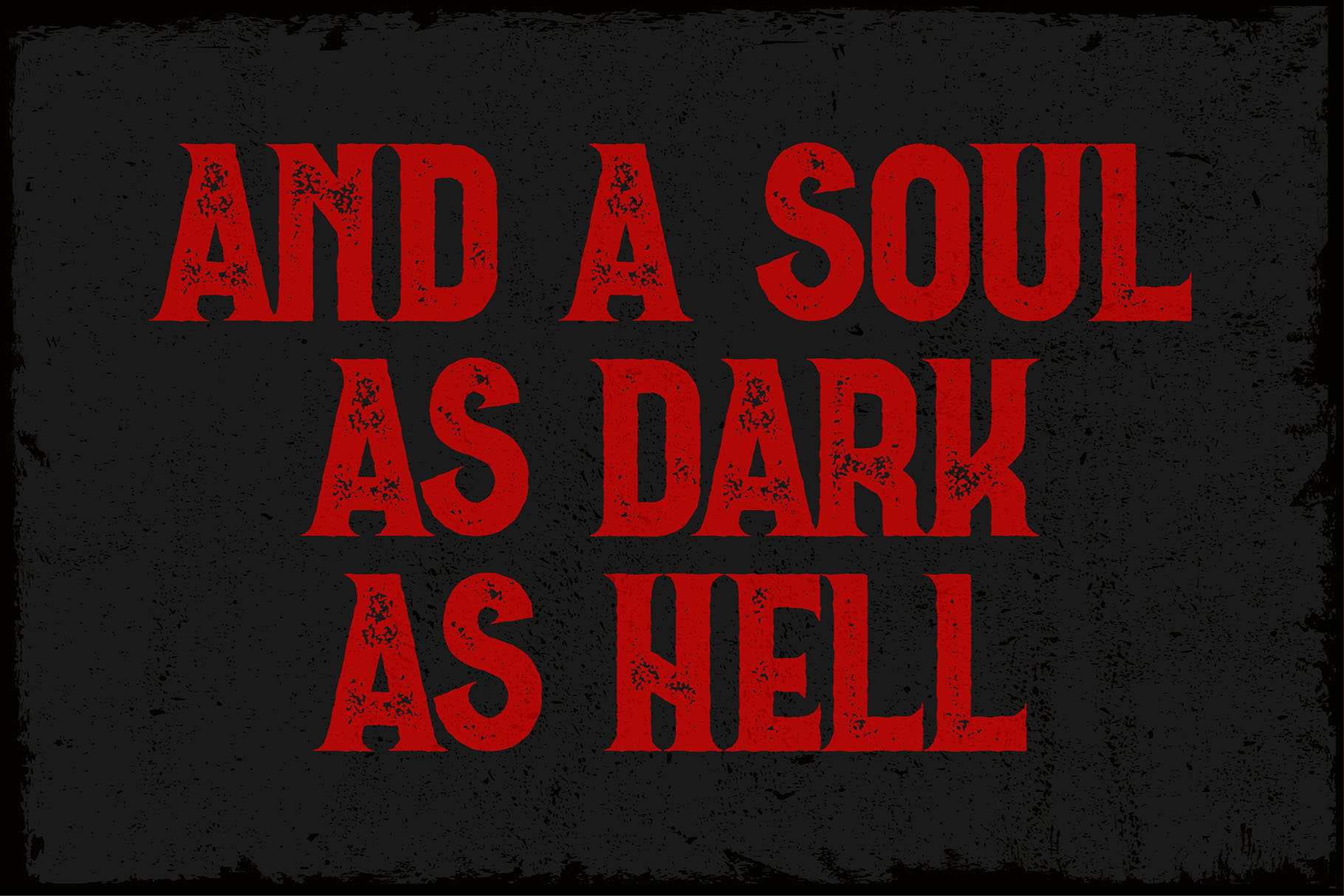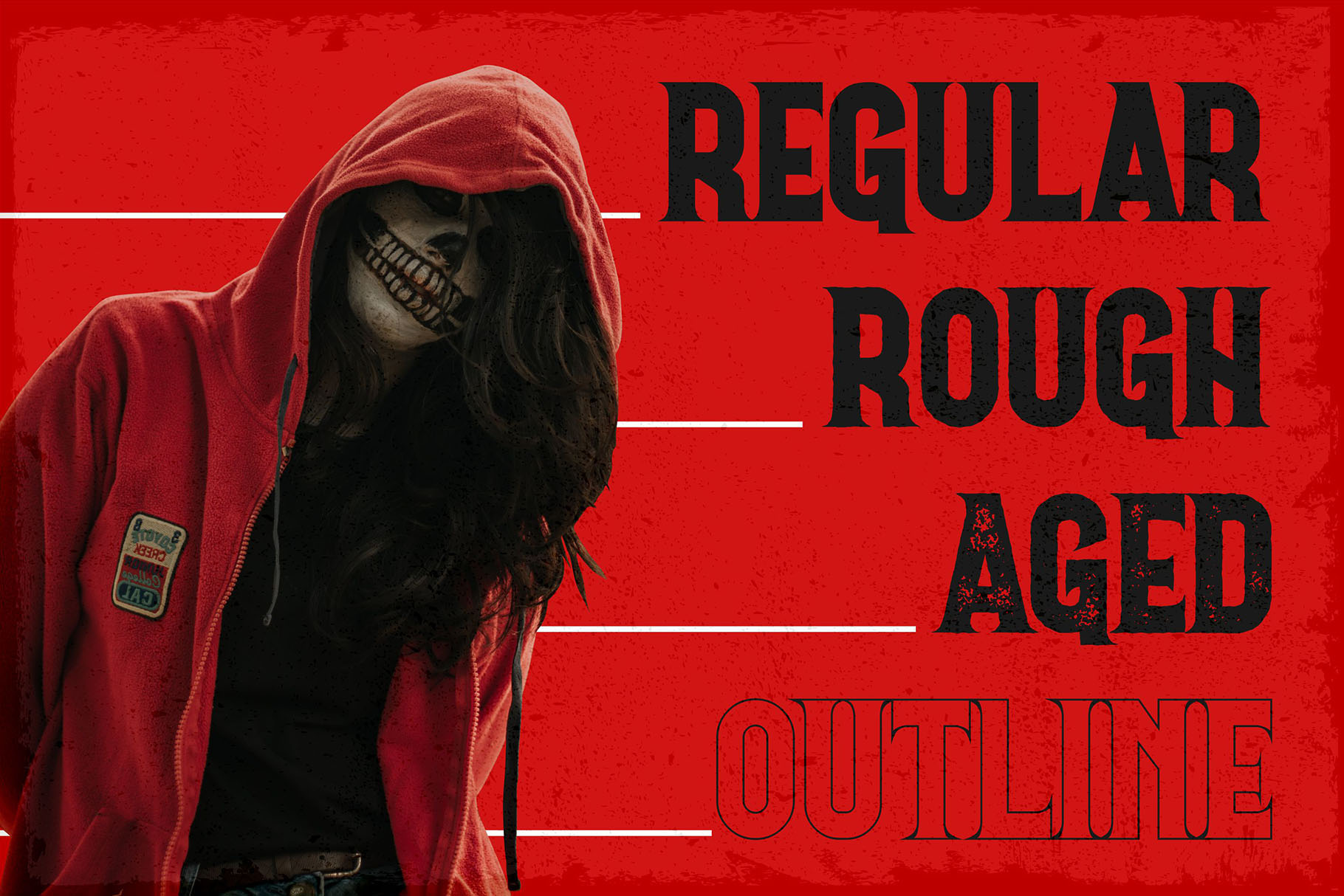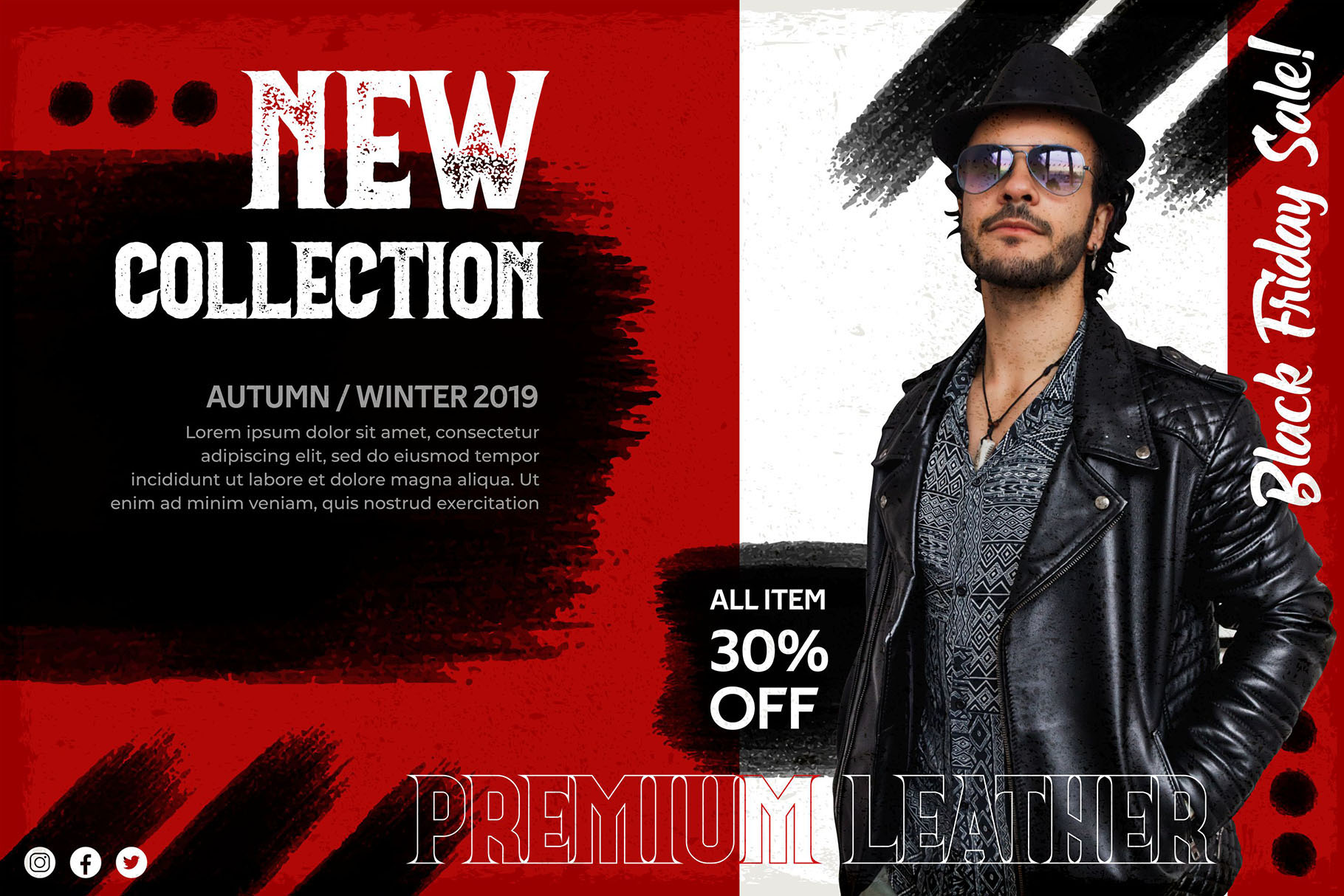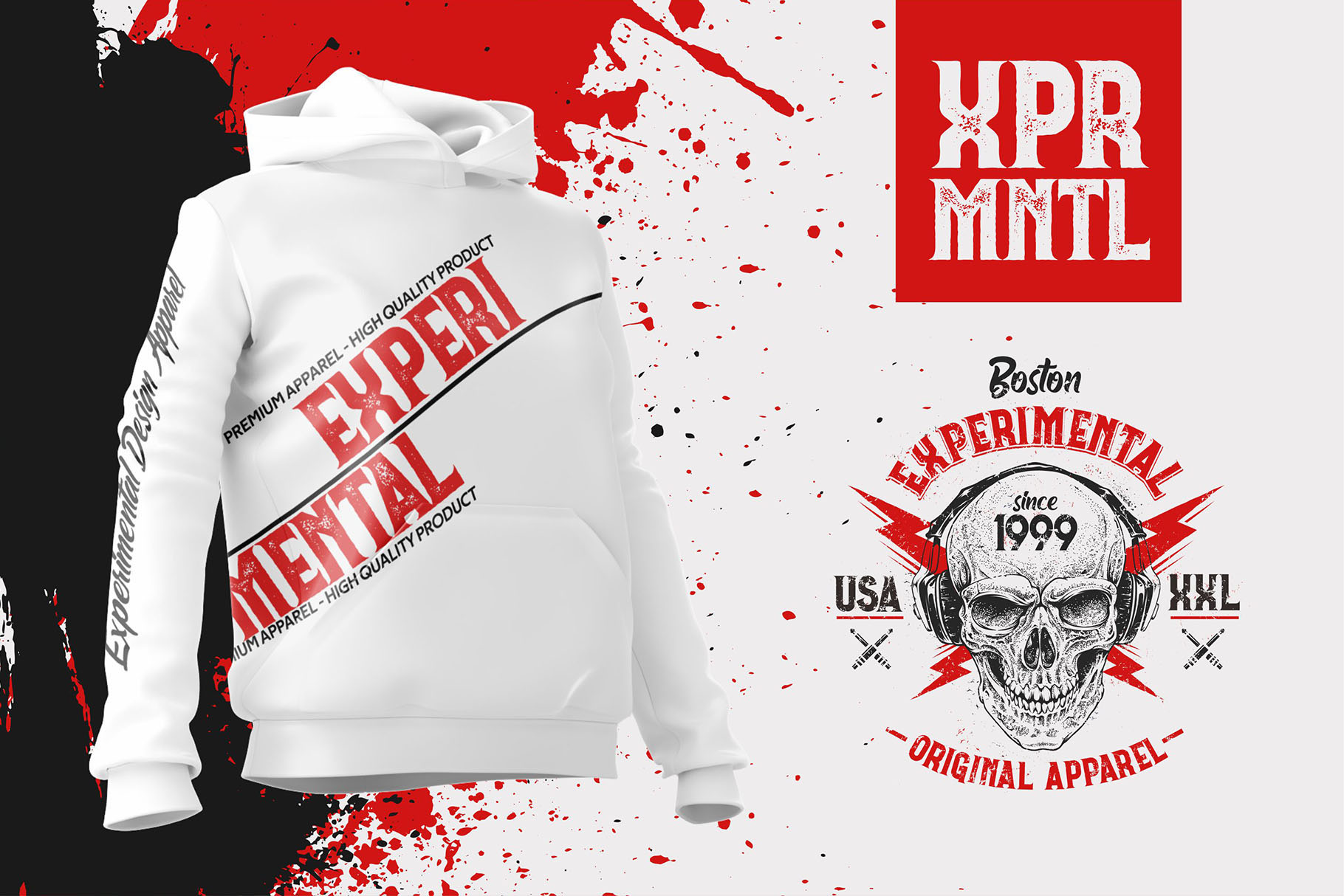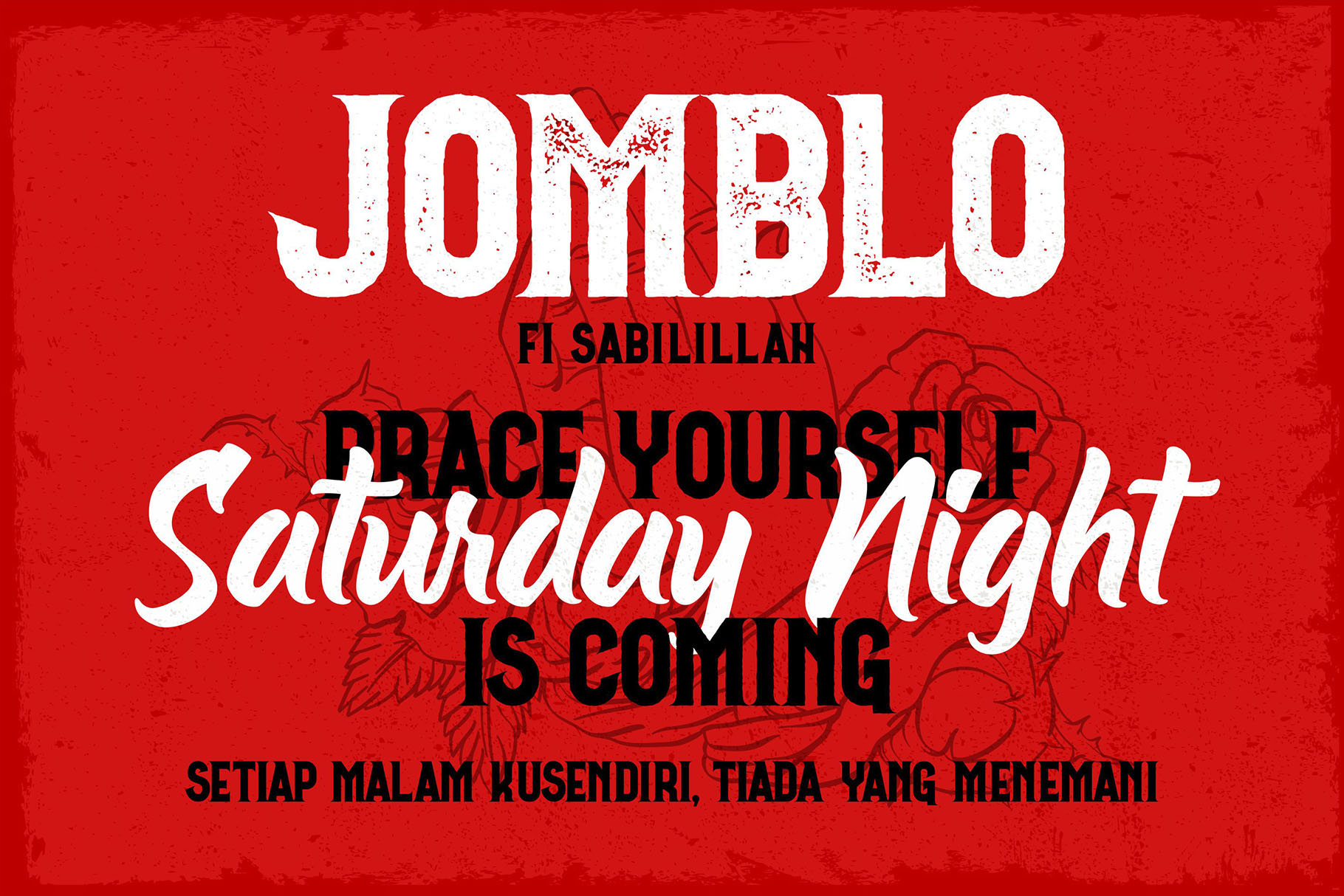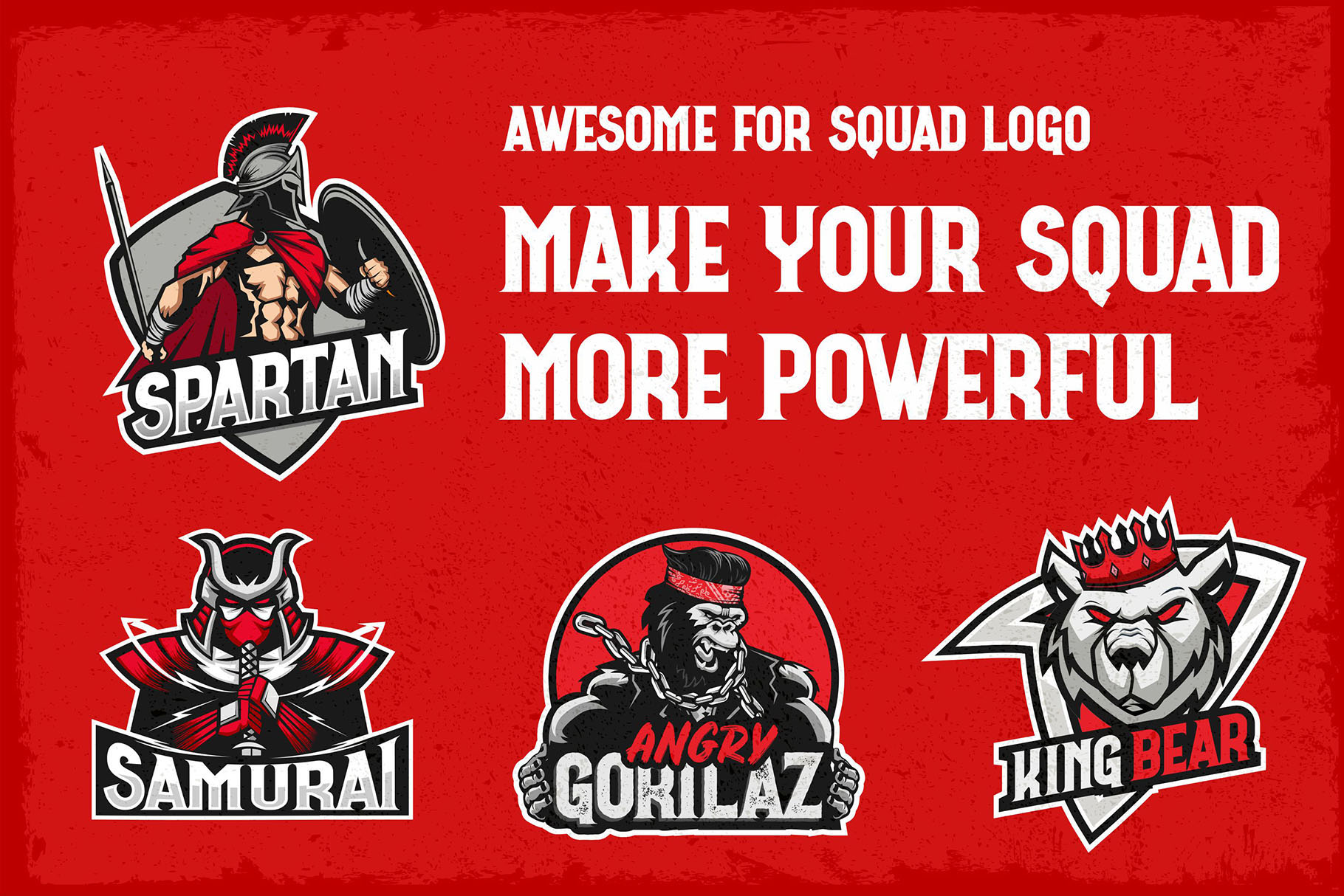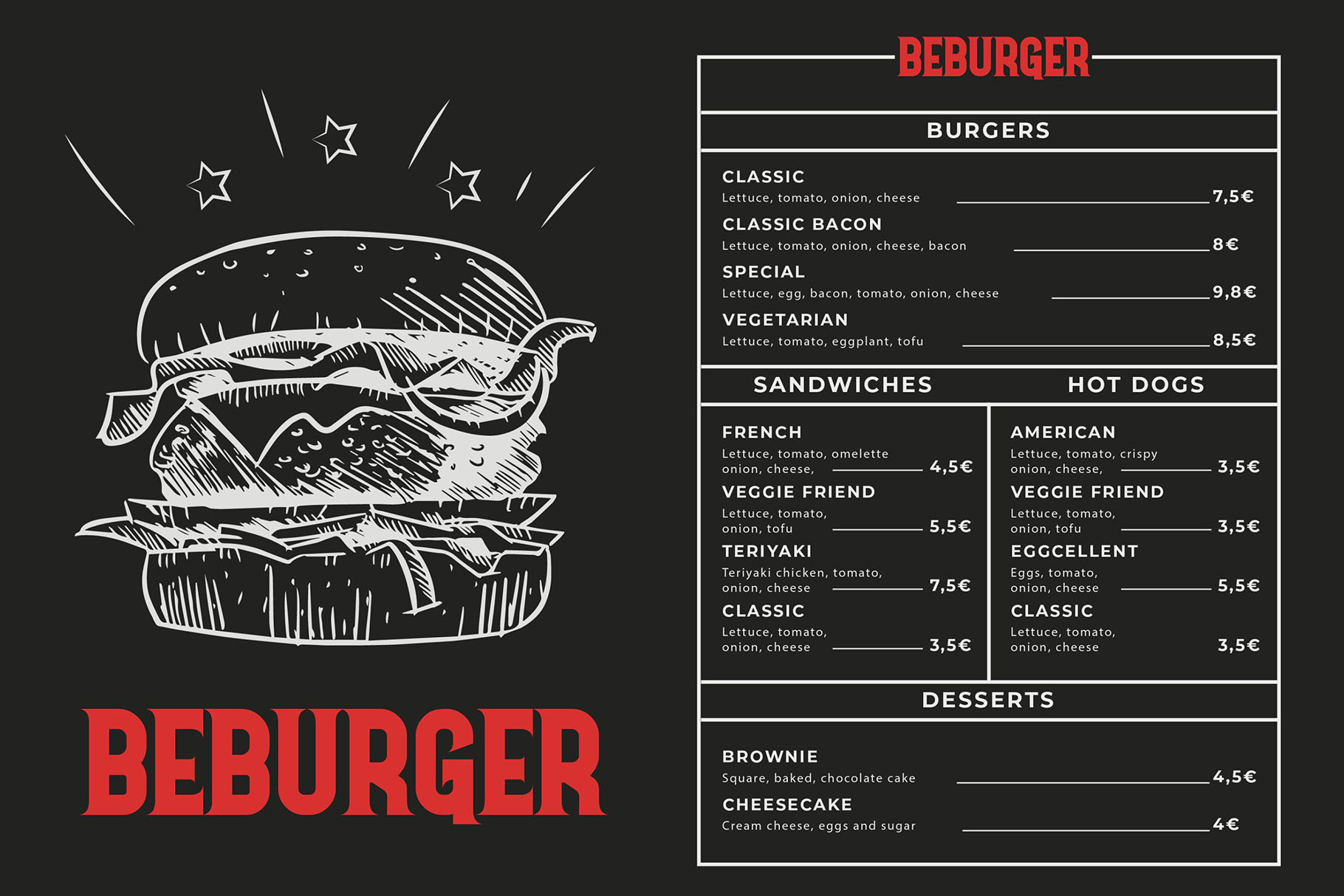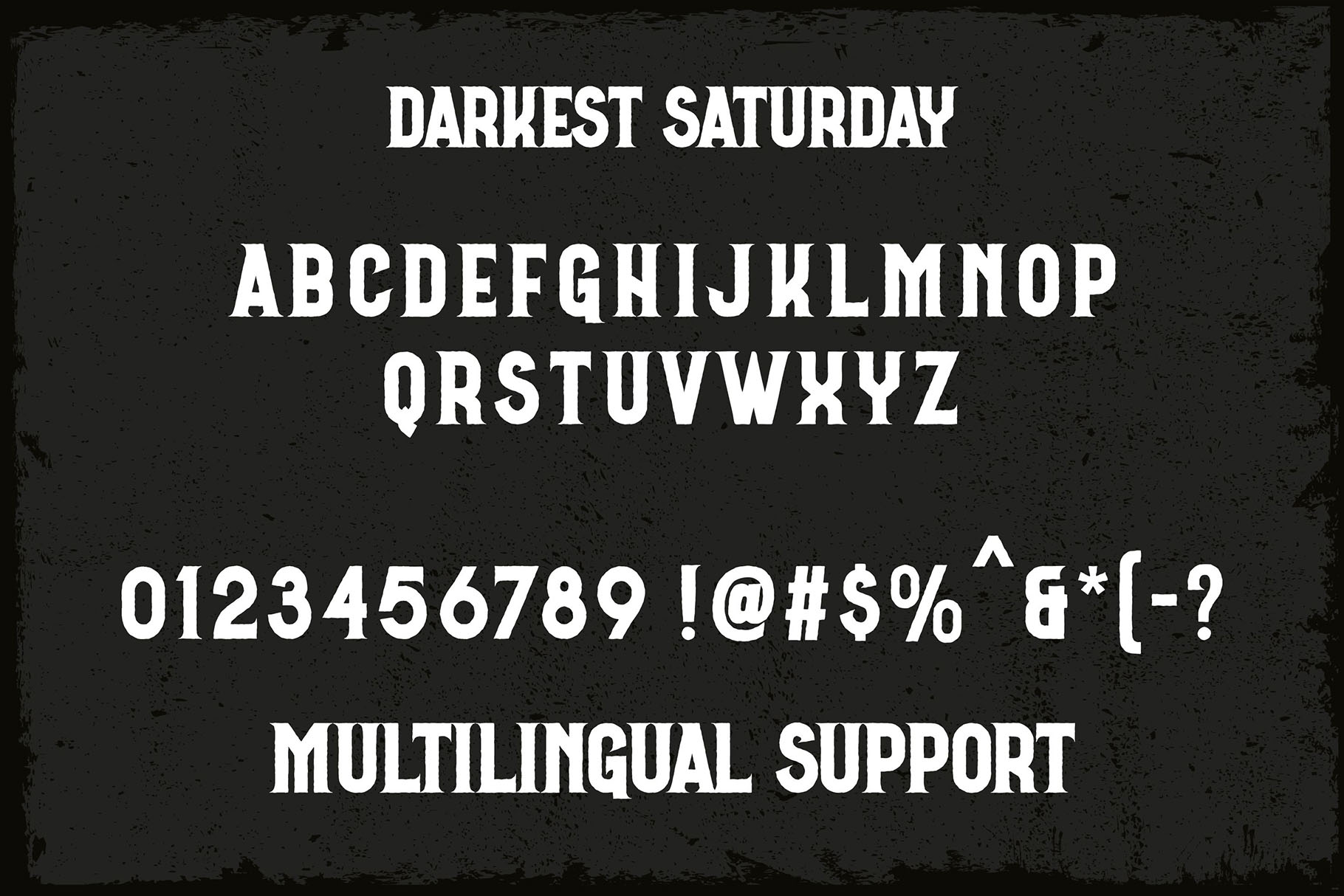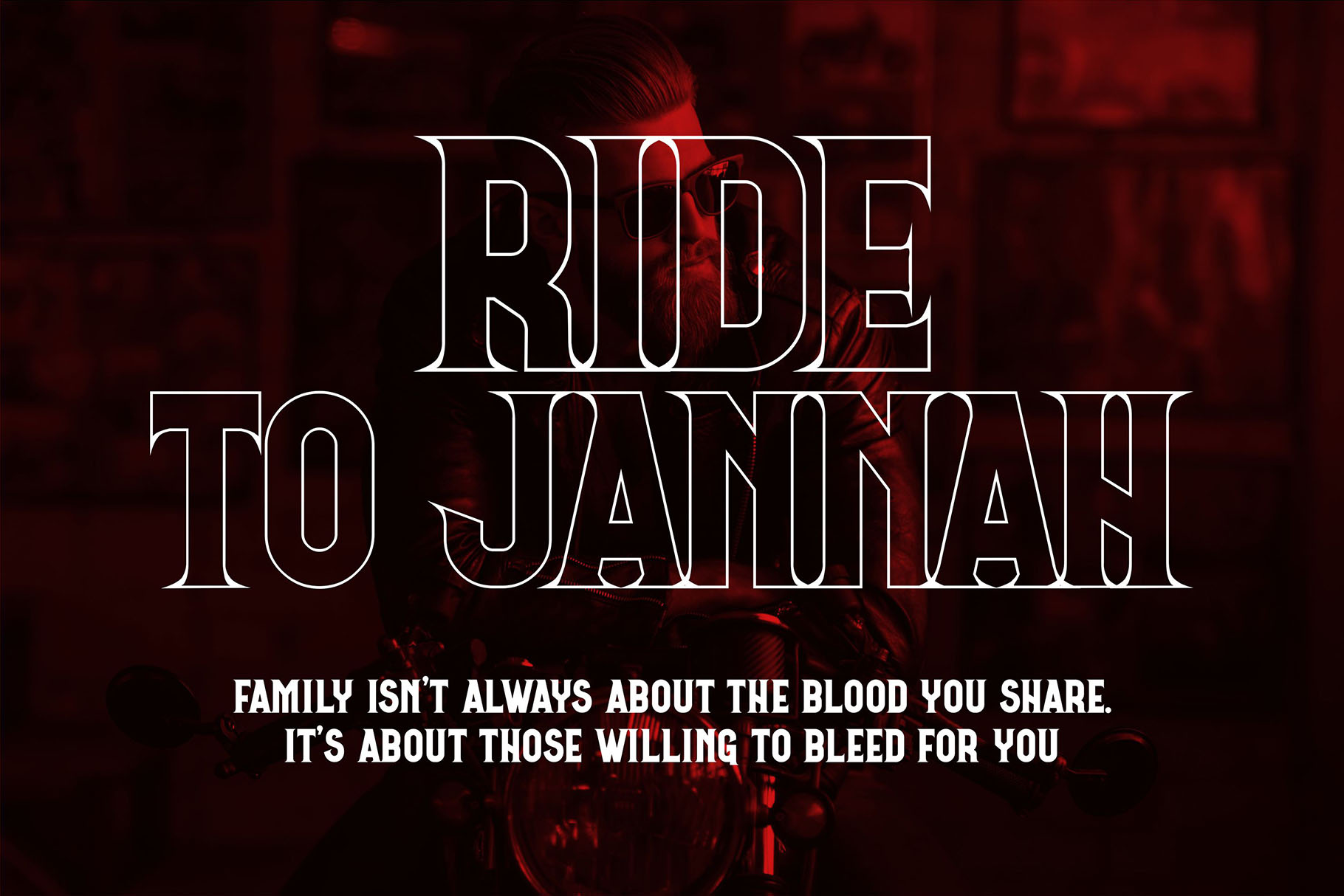
Darkest Saturday
Darkest Saturday Vintage Display Font for Bold Visual Identity
Darkest Saturday is a vintage display font created for designers who want strong character, nostalgic detail, and a confident headline presence in one flexible font package. With Regular, Rough, Aged, and Outline styles included, this font gives you several visual directions to work with while keeping the same bold vintage personality across your designs.
This vintage display font is a practical choice for logos, posters, labels, packaging, merchandise, apparel graphics, badges, social media visuals, and editorial headlines. It brings a classic look that feels crafted, expressive, and memorable without becoming too decorative for real design use.
For brand designers, Darkest Saturday can help build a visual identity that feels established, bold, and full of personality. For digital product sellers and crafters, it offers a strong typographic style that can make templates, printable art, stickers, product labels, and merchandise graphics feel more finished and intentional.
Darkest Saturday carries a vintage-inspired display style with a bold, expressive attitude. The Regular style works well when you need a cleaner display look, while the Rough and Aged styles add a more worn, textured, and classic printed feel. The Outline style gives designers another option for layered layouts, badge compositions, and attention-grabbing headline treatments.
Its personality feels strong, nostalgic, and slightly rugged. That makes it especially useful for designs that need to look classic rather than minimal, expressive rather than quiet, and memorable rather than overly polished. It can support a wide range of creative directions, from old-school posters and music artwork to coffee labels, apparel graphics, barbershop branding, food packaging, and vintage-themed social media campaigns.
Because the package also includes The Barethos, designers get an additional display font option that can support playful, food-inspired, or packaging-focused projects. This gives the font package more creative range for designers who build multiple visual assets for one brand or product line.
Best Use Cases for a Vintage Display Font
Darkest Saturday is made for moments where typography needs to lead the design. Use it for large headlines, bold product names, memorable logo concepts, packaging fronts, poster titles, merchandise statements, signage-inspired layouts, and visual identities that need a classic display voice.
For packaging designers, this font can work beautifully on labels, jars, bottles, boxes, coffee bags, food packaging, and handmade product branding. The textured styles can add a printed, aged, or artisanal feeling, while the regular and outline versions can keep the composition clear and structured.
For apparel and merchandise creators, Darkest Saturday can be used for t-shirt designs, hoodie graphics, tote bags, stickers, and print-on-demand products. Its vintage tone works especially well for designs that need a strong phrase, badge-style layout, or nostalgic brand mark.
For content creators and digital product sellers, this font can help create more distinctive posters, printable quotes, social media graphics, moodboards, and promotional templates. The available styles make it easier to build variation across a campaign while keeping a consistent typographic identity.
Key Features
• Vintage display font style
• Includes Regular style
• Includes Rough style
• Includes Aged style
• Includes Outline style
• Includes The Barethos font
• Uppercase characters
• Lowercase characters
• Numerals and punctuations
• Accents / multilingual characters
Designers love fonts that help them move faster without making a project feel generic. Darkest Saturday gives you several display styles in one package, so you can build a cleaner logo concept, a rougher poster layout, an aged packaging label, or an outlined headline without switching to a completely different visual language.
The style range is especially helpful for branding systems. A designer can use the Regular style for a primary logo, the Aged style for secondary packaging graphics, the Rough style for social media or poster artwork, and the Outline style for badges or supporting headlines. This makes the font feel useful across multiple touchpoints.
Darkest Saturday is a strong choice for designers who want a vintage display font with flexible styles, practical file formats, and a confident visual voice. Use it to build logos, packaging, posters, labels, apparel designs, and brand graphics that feel bold, classic, and ready for real creative projects.